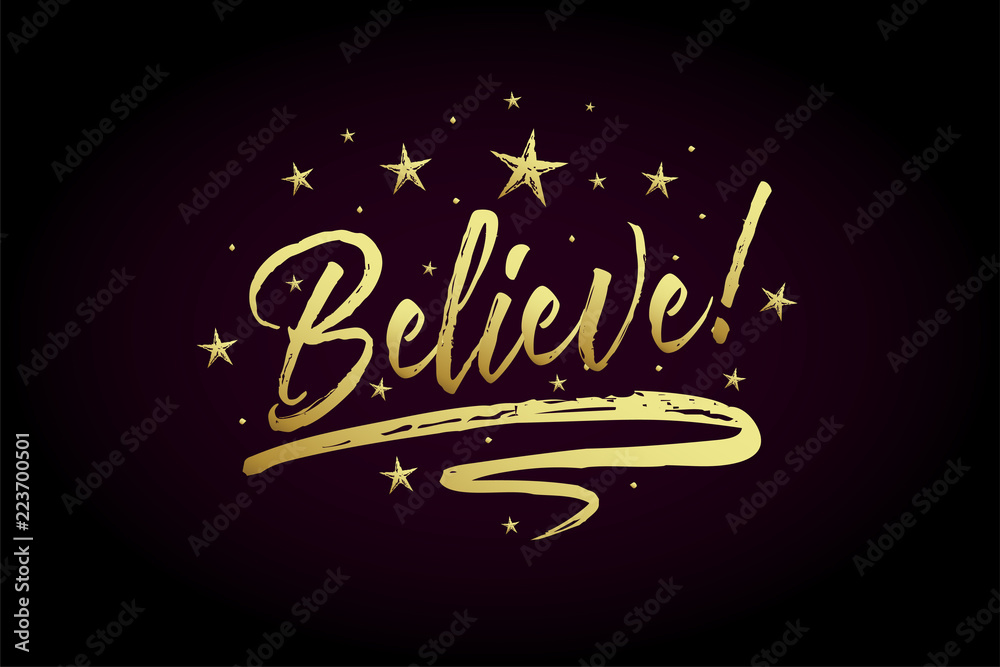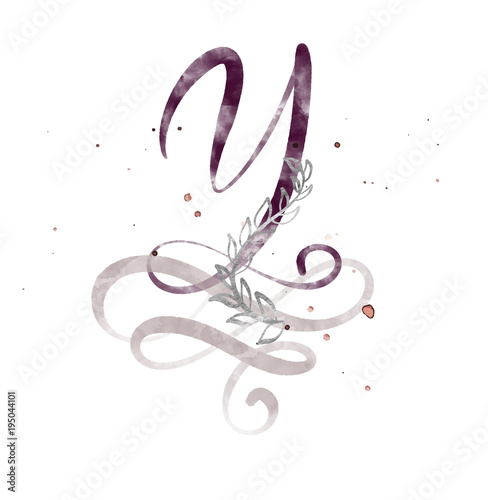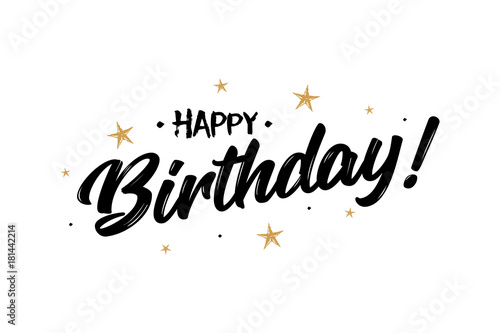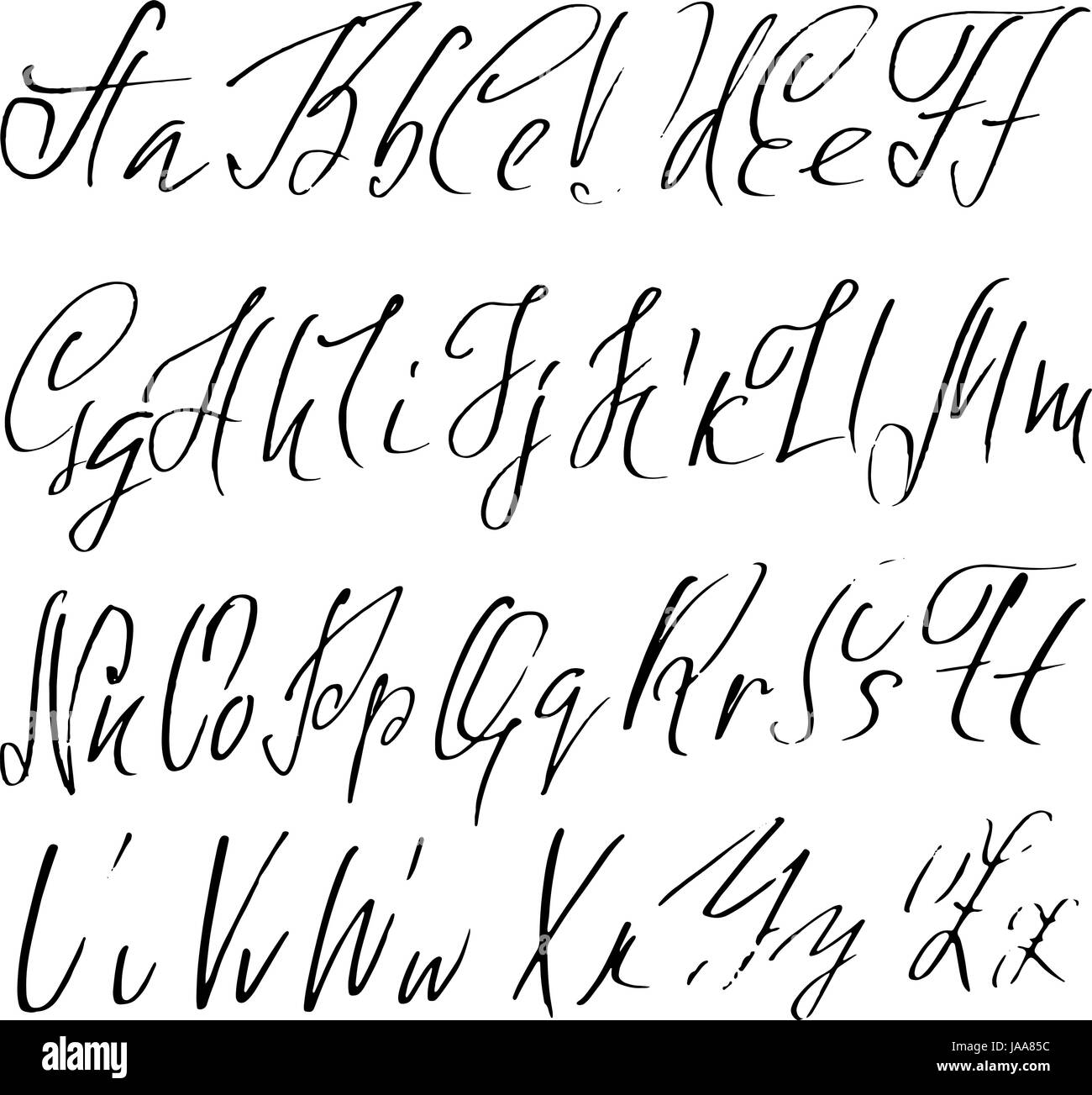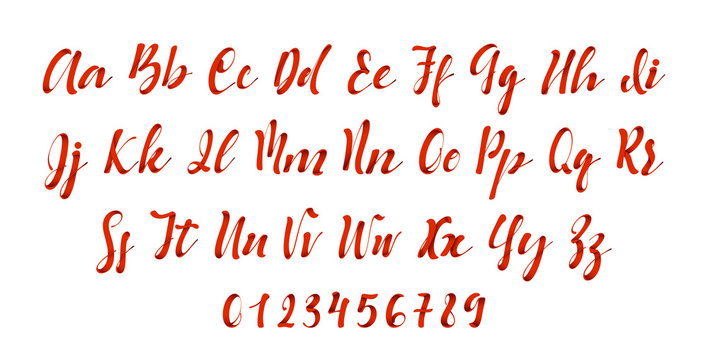
There is now a first selection of decorative elements that can be added using the global tools. Standard and inlineThis font is perfect for custom labels news invite wedding living room skin care doctor makeup artist organizer cafe photography etc.
Hand lettering ribbon calligraphy font. Looking for Handwritten Calligraphy fonts. Every font is free to download. Looking for Hand Lettering fonts.
Calligraphy is an ancient writing technique using flat edged pens to create artistic lettering using thick and thin lines depending on the direction of the stroke. Creative Lettering Design Logo Design Typography Letters Typography Logo Ribbon Font Cv Original Middle School Art Projects Window Display Retail. Click to find the best 1512 free fonts in the Hand Lettering style.
With your pen you will be able to draw monoline letters block letters elegant flourishes and even imitate brush letterings or real calligraphy. Every font is free to download. The height of calligraphy was reached in the middle age where monks developed the narrow writing style called gothic allowing more words to fit on a single line as paper was expensive at the time.
Looking for Hand Drawn Calligraphy fonts. The most handy pen is. Ninetails is a handwritten font it has two different styles.
Click to find the best 382 free fonts in the Hand Drawn Calligraphy style. Another update of hand lettering generator was done and I added new features the community wished for. It uses open-type feature.
Click to find the best 2024 free fonts in the Handwritten Calligraphy style. See more ideas about lettering hand lettering fonts. Carolyna is an elegant yet whimsically handwritten calligraphy font that was created with readability in mind.